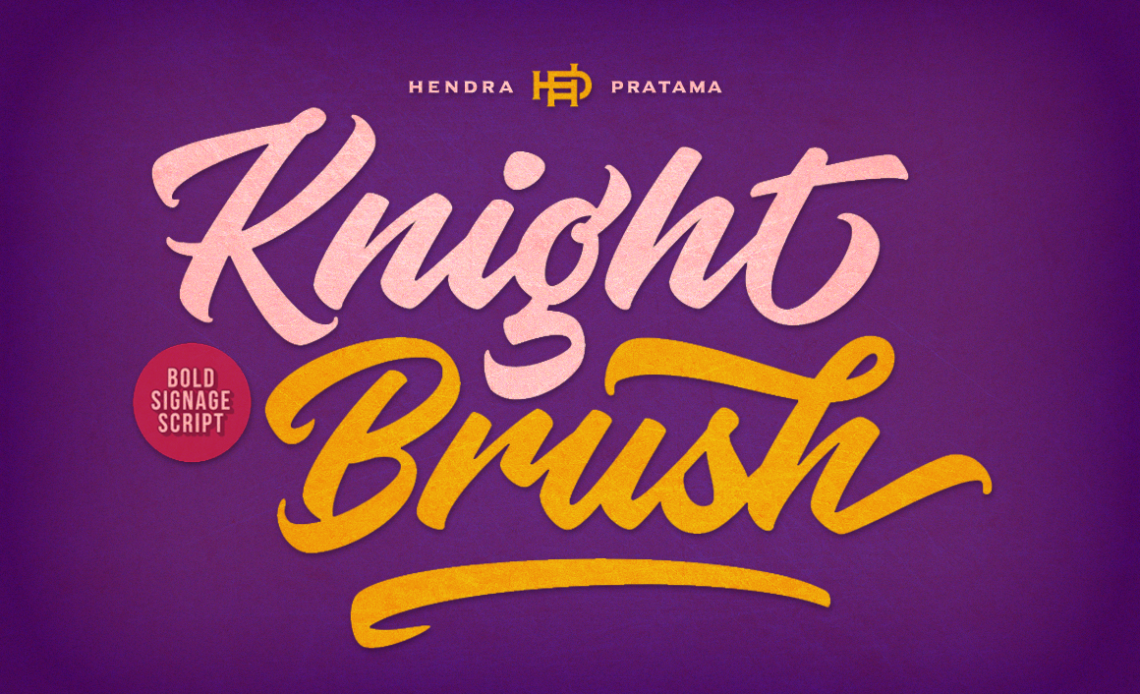
Behold Knight Brush, a script font that oozes glamour and strength, a necessary addition to every font collection. Inspired by the captivating charm of vintage storefront designs, Knight Brush is an extremely adaptable font that can effortlessly elevate your designs.
Picture this: A retro-inspired poster with bold, enchanting text that transports you back in time. Or a sleek and sophisticated logo that exudes elegance and class. With Knight Brush, the creative possibilities are endless.
Its resemblance to brush painting adds a touch of artistry and uniqueness to your designs. Each stroke speaks volumes, conveying a narrative of vintage charm and contemporary aesthetics.
Unleash the power of Knight Brush to create designs that capture the essence of vintage design while making a bold statement in the modern world. Use it to create:
Captivating posters that draw attention with their vintage flair
Mesmerizing social media graphics that transport your audience to another era
Memorable logos that leave a lasting impression and evoke a sense of nostalgia
Eye-catching packaging designs that add a touch of elegance to your products
With Knight Brush, you unlock a world of creative opportunities, limited only by your imagination. Its versatility and bold character make it the perfect choice for both personal and professional projects.